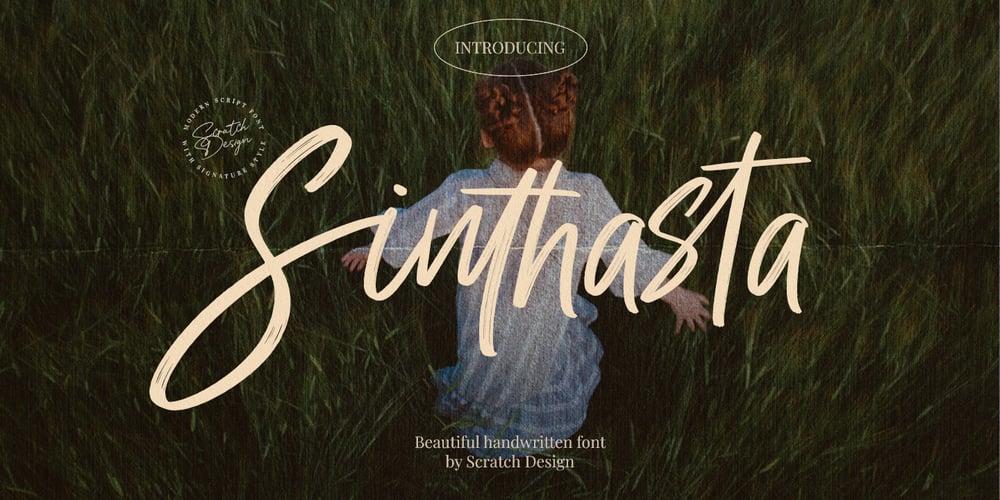
Sinthasta
Sinthasta font
Sinthasta Font Family was designed by Gitayogi Irhandi and published by Scratch Design. Sinthasta contains 1 styles and family package options. Introducing Sinthasta, the beautiful handwritten font with texture.Looking for a font that’ll make your branding radiate elegance, beauty, modernity and stylish? Just get ready for Sinthasta, a casual textured handwritten font that will make your design perfect. This font will work for invitation design, logos, posters, packaging, book cover, quote, social media post, etc.Just open your Opentype features while using the script font to use the ligatures and swashes. Also, this font includes alternates for lowercase. Features: Accents (Multilingual characters) Ligatures Swashes, Numerals and Punctuations.So, enjoy the Sinthasta Font and make some cool stuff!